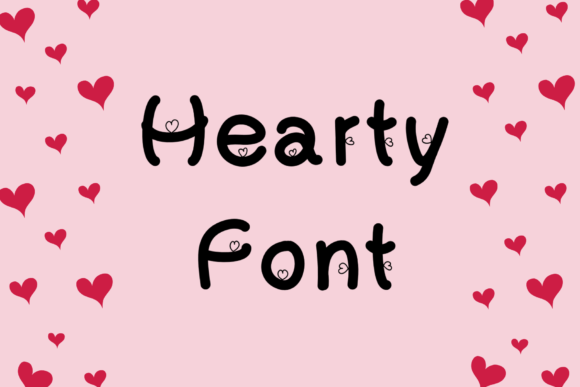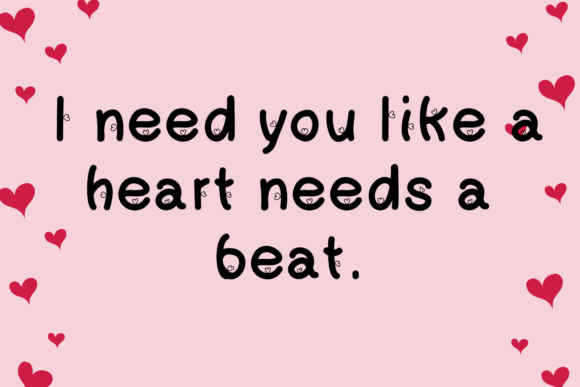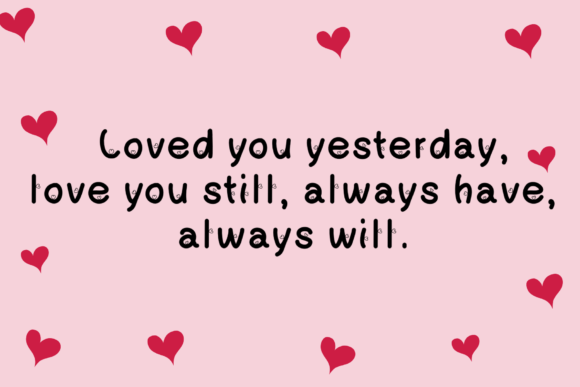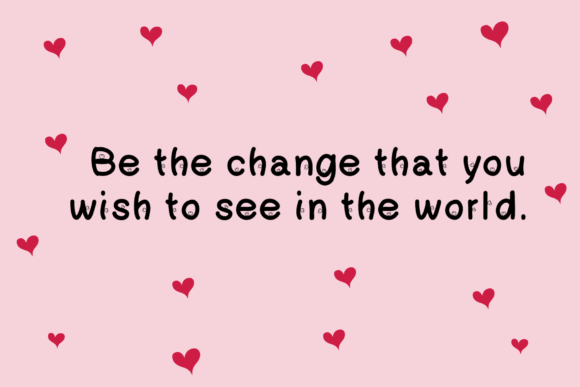
About Hearty Font
Hearty is a charming handwritten font that adds a lovely touch to any design project you have in mind. With its appealing and warm aesthetic, this font is versatile and confident, making it an excellent choice for a variety of creative endeavors. Use Hearty with confidence, and watch as your projects effortlessly capture everyone’s attention.
The handwritten style of Hearty brings a personal and authentic feel to your designs. Its flowing and graceful characters create a sense of warmth, making it well-suited for conveying heartfelt messages or adding a friendly touch to your creative projects.
The versatility of Hearty makes it suitable for a wide range of design applications. Whether you’re working on branding, social media graphics, invitations, posters, or any other project, Hearty’s lovely handwritten elements contribute to the overall visual appeal.
Hearty’s confident and engaging presence ensures that your designs stand out with ease. Its clarity and readability make it a reliable choice for conveying messages effectively, ensuring that your audience can connect with the content effortlessly.
Incorporate Hearty into your creative projects, and you’ll find that it brings a delightful and inviting quality to your designs. From digital graphics to print materials, the font adapts seamlessly to various mediums, allowing you to use it confidently across different platforms.
In summary, Hearty is more than just a font; it’s a design companion that brings a lovely and confident handwritten style to your projects. Whether you’re working on branding, marketing materials, or personal creations, Hearty’s charming aesthetic captures attention and adds a touch of warmth to your designs, making them memorable and engaging.